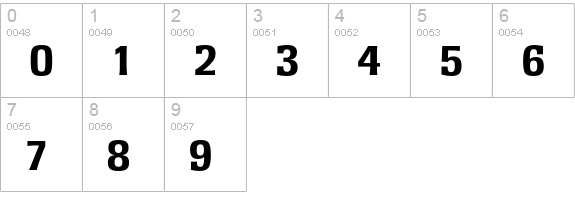
Rochester-Bold is a strong, high-contrast variant in the Rochester typeface family \xE2\x80\x94 well suited to headlines, attention-grabbing titles, and strong calls-to-action.
Rochester-Bold is a stylish and sophisticated font that exudes elegance and class. With its bold and eye-catching design, this font is perfect for creating impactful headlines, titles, and logos. The strong and distinct letterforms of Rochester-Bold make it a versatile choice for a wide range of design projects, from branding to editorial design. What sets Rochester-Bold apart is not just its striking appearance, but also the fact that it is available for free download at FontsMarket.com. This means that you can easily access this high-quality font and use it in your projects without any cost. Whether you're a designer looking to add a touch of sophistication to your work or a business owner in need of a standout font for your branding, Rochester-Bold is a fantastic choice that won't break the bank. Download Rochester-Bold today and elevate your designs with its premium look and feel.